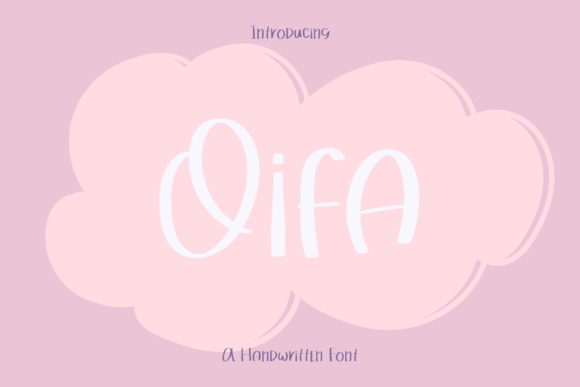
Introducing Oifa Font - Your Ticket to a World of Trendy Designs!
Prepare to be mesmerized by Oifa Font, a charming handwritten font that exudes a unique blend of playfulness and sophistication. With its relaxed and friendly demeanor, Oifa Font promises to elevate your designs to new heights. Dive into a world of endless creative possibilities and let Oifa Font guide you on an extraordinary typographic journey.
Unlock the Power of Oifa Font:
- Mesmerizing Aesthetics: Embrace the captivating charm of Oifa Font, meticulously crafted to add a touch of whimsy and individuality to your designs. Its playful strokes and organic curves are sure to leave a lasting impression on your audience.
- Versatility Redefined: Unleash the limitless potential of Oifa Font across a myriad of design projects. From eye-catching logos and branding elements to captivating social media graphics and website designs, Oifa Font effortlessly adapts to your creative vision.
- Communication Elevated: Elevate your communication with Oifa Font's friendly and approachable aura. Its legible and distinctive characters ensure that your messages are conveyed with clarity and warmth, leaving a lasting impact on your readers.
- Creative Inspiration Unleashed: Ignite your creative spark with Oifa Font and witness your ideas come to life. Its unique style serves as a catalyst for innovation, propelling you towards groundbreaking designs that resonate with your audience.
Embrace Oifa Font Today and Unlock a World of Design Possibilities:
- Elevate Your Branding: Distinguish your brand with Oifa Font's captivating aesthetics. Its playful elegance adds a memorable touch to your logos, business cards, and marketing materials, leaving a lasting impression on potential customers.
- Engage Your Audience: Craft social media graphics and website designs that captivate your audience with Oifa Font's undeniable charm. Its friendly and approachable nature fosters a connection with your followers, driving engagement and boosting your brand's visibility.
- Create Unforgettable Invitations: Design invitations that set the tone for special occasions with Oifa Font. Its playful strokes and organic curves add a touch of whimsy to wedding invitations, birthday cards, and party flyers, creating cherished memories that last a lifetime.
- Unleash Your Creativity: Oifa Font is your passport to a world of creative freedom. Let your imagination soar as you explore a multitude of design possibilities, from enchanting posters and flyers to captivating book covers and product labels.